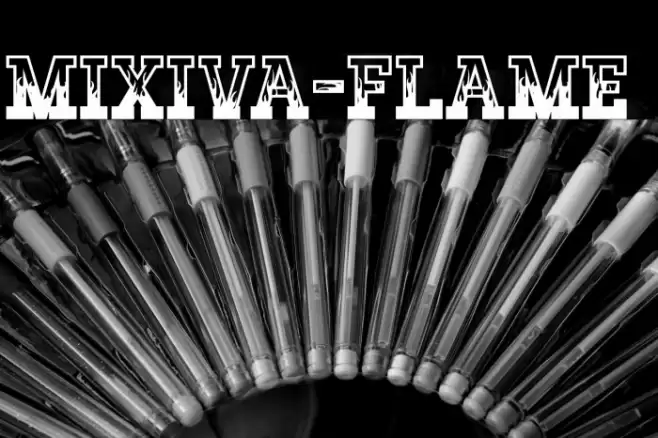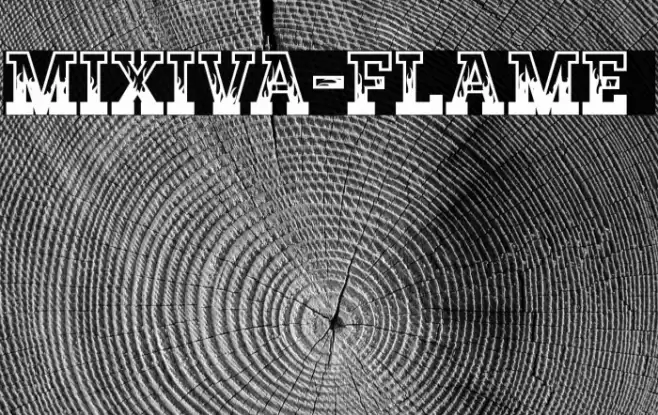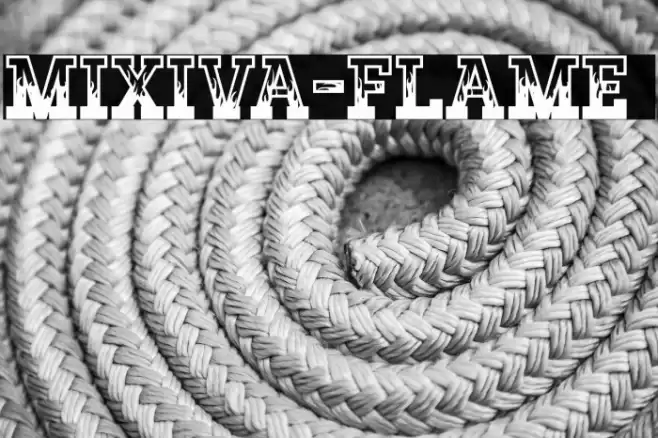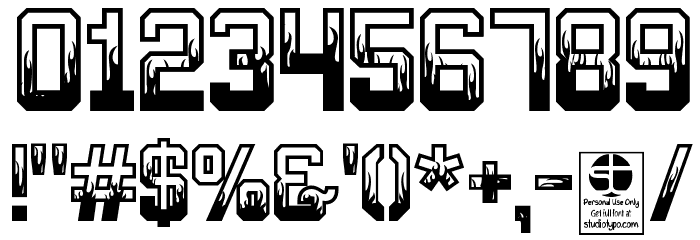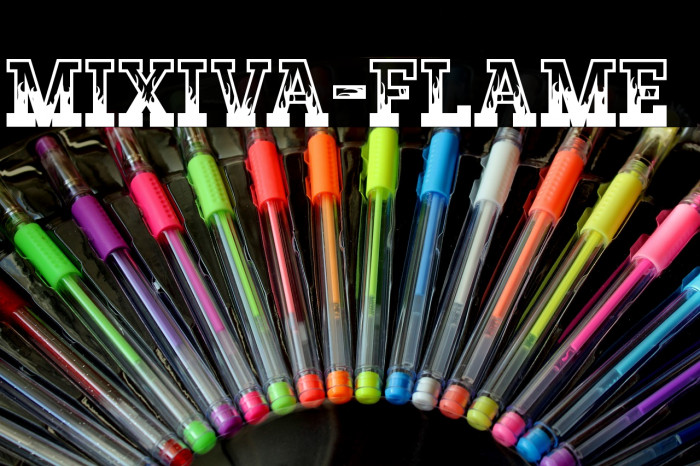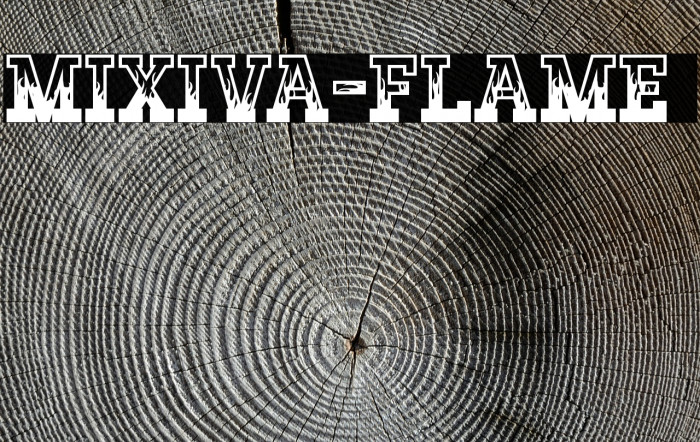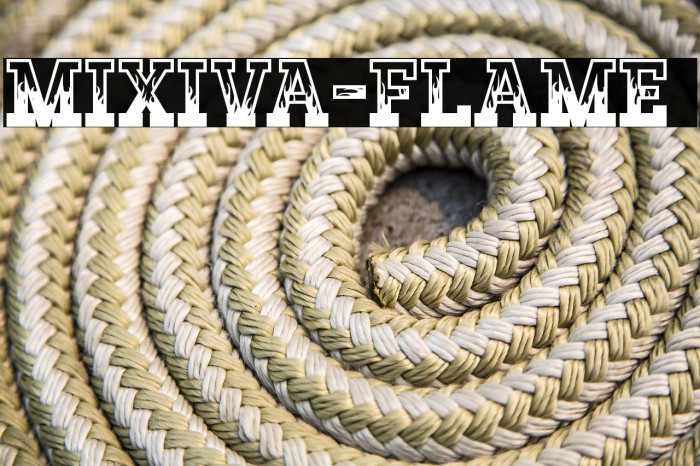
MIXIVA-FLAME demo Font
MIXIVA-FLAME demo Description
This font features a bold and dramatic style with a unique flame-like design integrated into each character. The uppercase letters are particularly striking, with sharp edges and a strong presence. The numbers and special characters also carry the flame motif, adding a sense of intensity and energy. The overall design is highly decorative, making it suitable for projects that require a bold statement. The font's distinct style is ideal for creating eye-catching headlines or logos that need to stand out.
A bold, flame-themed decorative font with a strong, dramatic presence from Old fashioned fonts.
- Proposed Projects: Ideal for use in posters, logos, event promotions, and any design requiring a bold, eye-catching typeface.